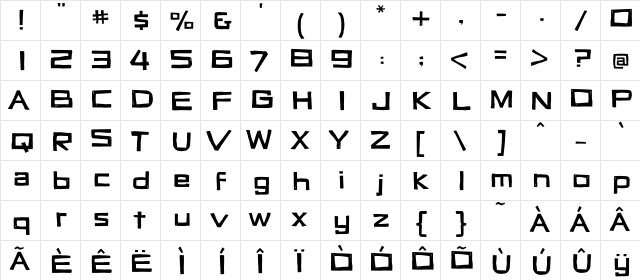
Vertigon Regular
| Designer | Andrew Bertram |
Design Context for Vertigon Typeface
Vertigon is a composed and adaptable typeface that performs quietly and consistently across a wide range of design contexts.